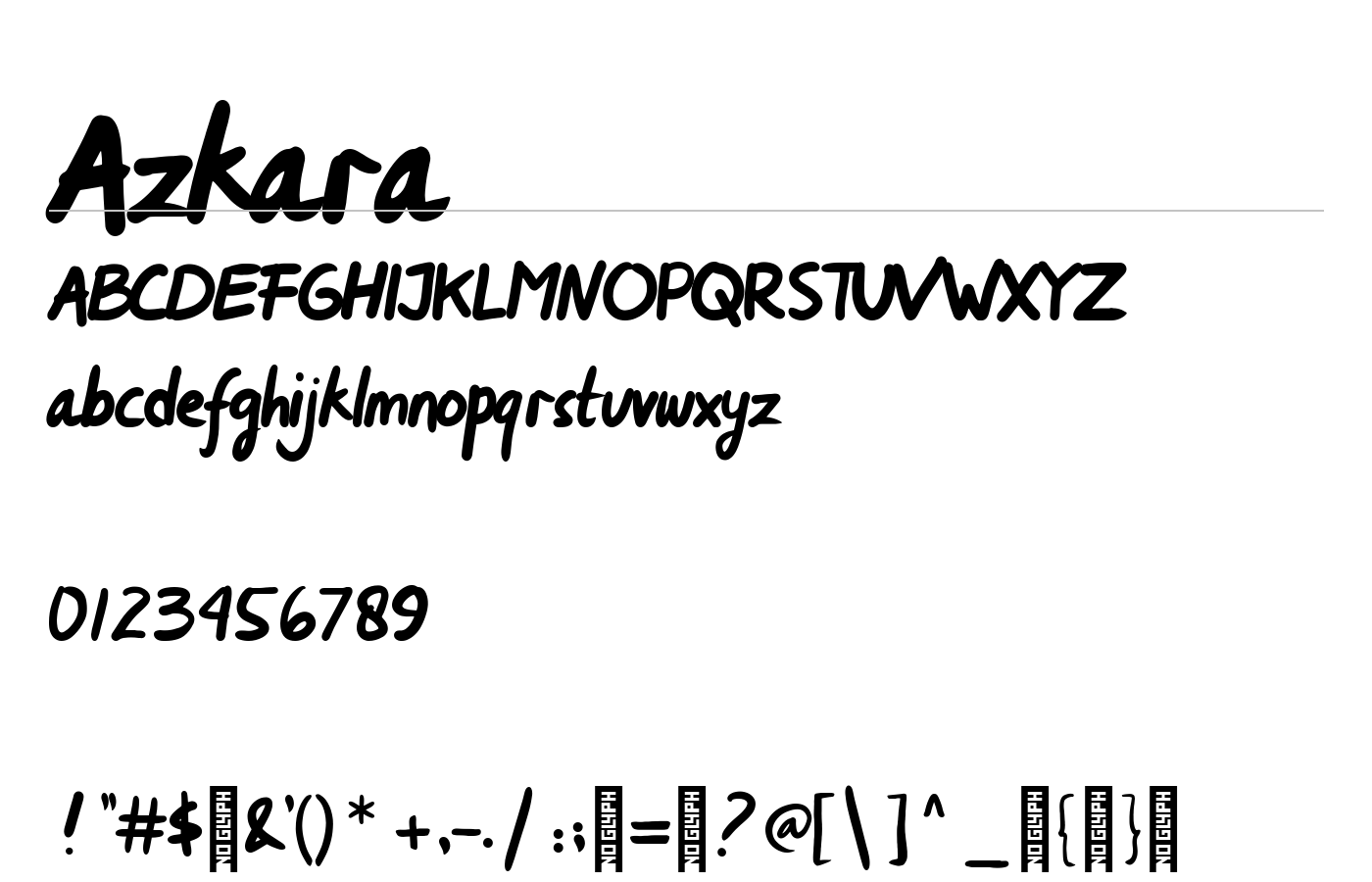
Azkara is a lively and casual handwritten sans serif font that features irregular, playful letterforms with a slightly bold weight and medium x-height. Its flowing strokes and rounded edges give it a friendly, approachable feel, making it ideal for informal designs like branding, invitations, or social media graphics that want to convey warmth and personality. This font works best in headlines or short texts where a personal, creative touch is desired.
Azkara Font
About Azkara Font